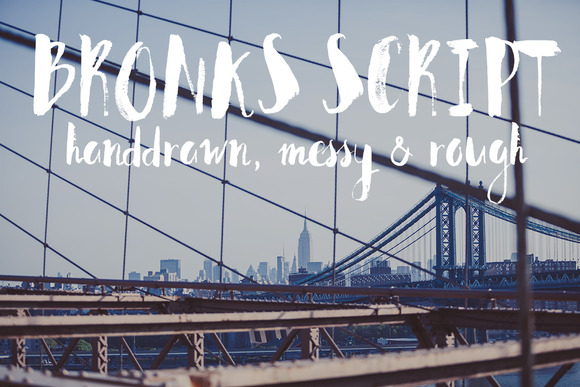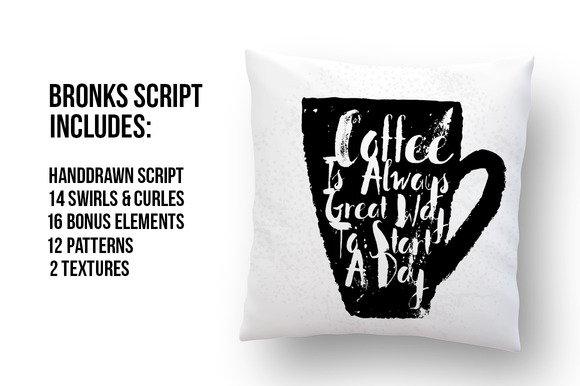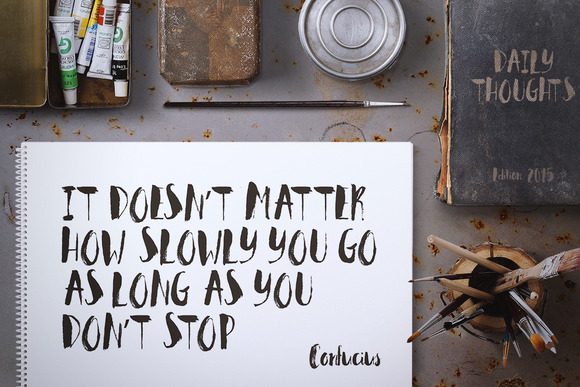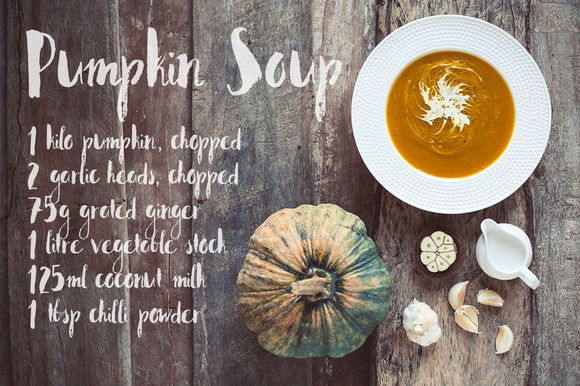
Bronks Script Font
About Bronks Script Font
Bronks is a bold type with a strong personality. It’s messy and looks great on titels. The Bronks font was created by drawing on textured paper with a brush and ink.
The Bronks features rough edges with imperfect lines which gives your text an organic hand-painted look.